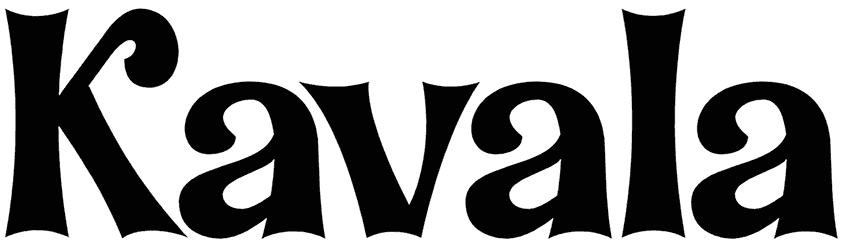
Kavala Font
Kavala has a calm look and can create a friendly feeling in your writing. This retro font is inspired by old writings and maintains the same standards. However, it can be well paired with modern projects and bring you an attractive look.
Using this fancy font, you can break the strict frameworks of your design and look impressive while being beautiful. So if you want your posters, ads, or banners to affect sales and don’t need numbers, this font is for you.
Kavala Serif Font
This font is a modern serif font it’s a cool modern take on a retro classic, and it’s ready to make a lasting impression on your merchandise, quote designs, header text, logos & branding, advertisements and much more. It’s packed with plenty of alternates and ligatures to really bring it to life, and give you a wide range of customisation options.Features:
4 Weights font (Regular,Italic,Bold,Outline)
Lowercase and Uppercase
Beautiful Alternates & Ligatures
Numerals & Punctuation
Accented characters